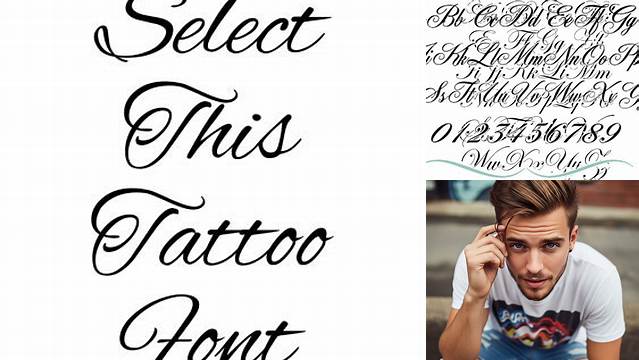
Cursive Fonts Tattoo Generator: Design Your Dream Ink
Hey guys! Are you thinking about getting a tattoo? That's awesome! If you're leaning towards a classic, elegant look, then you might be considering a cursive font for your tattoo. And that's where a cursive fonts tattoo generator comes in handy. This tool allows you to visualize what your chosen words or phrases will look like in various cursive styles before you commit to the permanent ink. Let's dive into the world of cursive tattoos and how a generator can help you achieve the perfect design.
1. What Makes Cursive Fonts Tattoo Designs So Popular?
Cursive fonts tattoos have a timeless appeal, and they're extremely popular for a number of reasons. First, the fluidity of cursive script lends itself beautifully to personalization. The flowing lines and interconnected letters evoke a sense of elegance and sophistication. It’s like a secret language inked onto your skin. The script itself is often associated with romance, and can carry a deeply personal meaning, such as a loved one's name, an inspirational quote, or a significant date. Unlike block letters or bold fonts, cursive can add a touch of artistry. Each letter becomes a work of art, woven together to create a harmonious whole. This sense of personalized artistry is a big draw for many people looking to express their individuality. The very nature of cursive fonts, with their loops and flourishes, allows for a wide range of customization. You can choose from delicate, feminine scripts or bold, more masculine styles. Cursive fonts have a historical charm. They evoke a sense of nostalgia, reminding us of handwritten letters. It’s like carrying a piece of history on your skin. The visual impact of cursive fonts tattoos is also a key factor in their popularity. The flowing lines draw the eye, creating a sense of movement and grace that other font styles might lack. The overall aesthetic is often considered more refined and visually appealing. It's a subtle way to make a statement. It can also be a symbol of continuity, representing a commitment to an idea, person, or value that will last a lifetime. It's like carrying a legacy on your skin. This makes them a fantastic choice for anyone wanting a tattoo that’s both aesthetically pleasing and deeply meaningful. The beauty of a cursive fonts tattoo design lies in its versatility. Whether you are looking for a simple name, a meaningful quote, or a complex phrase, a cursive tattoo can be tailored to suit your needs. The ability to customize the font, size, and placement of the tattoo is a major advantage. With a bit of planning, you can create a tattoo that is unique to you. The options are virtually limitless, and there are so many different styles to choose from. This adaptability means that you can create a truly bespoke piece of body art that reflects your unique personality and style.
2. How Does a Cursive Fonts Tattoo Generator Work?
So, how exactly does a cursive fonts tattoo generator work its magic? Well, these online tools are pretty straightforward and user-friendly. Basically, they're designed to simplify the tattoo design process, especially when you're using a cursive font. Here's the lowdown: First off, you'll typically input the text you want to see in cursive. This could be anything from a name, a date, a quote, or even just a single word. Then, you get to choose from a variety of pre-loaded cursive fonts. Some generators offer a wide array of styles, from delicate and feminine scripts to more bold and elaborate designs. You can play around with the different fonts to see which one best suits your desired aesthetic. Next, you can often customize the text. This might include adjusting the size of the text, its spacing, or even the angle at which it appears. Some generators might even allow you to preview your design on a virtual body part, giving you a better idea of how it will look when tattooed. Some of these tools even allow you to tweak the design. You might be able to adjust the thickness of the lines, the curves, or add flourishes and embellishments to the letters. The goal is to provide you with a realistic preview before you go to the tattoo artist. You can experiment with different options, getting a feel for what you like best. It's all about finding the perfect style for your design. Once you're happy with your design, you can usually save it or download it. Then, you can take your design to your tattoo artist for them to bring it to life. The entire process is meant to be simple and intuitive, allowing you to explore your ideas with ease. You'll be able to experiment with various fonts, styles, and layouts. This helps you to make informed choices about your tattoo design. With a cursive fonts tattoo generator, you are in control of the design process from start to finish. You can be sure that the end result matches your vision. It's like having a virtual tattoo artist at your fingertips, ready to help you create something special.
3. Choosing the Right Cursive Font Style for Your Tattoo
Choosing the right cursive font style is a crucial step in the design process. The style you select will significantly impact the overall look and feel of your tattoo. There are countless options out there, from elegant and classic scripts to modern and edgy designs. Each style conveys a different mood or message, so it's important to choose one that aligns with your personal style and the meaning you want to convey. Classic cursive fonts often feature flowing lines, elegant curves, and a timeless appeal. They’re a fantastic choice if you want a tattoo that is both stylish and sophisticated. They evoke a sense of nostalgia and romance. They are the perfect option for names, dates, or short, meaningful phrases. In contrast, modern cursive fonts often have bolder lines, sharper angles, and a more contemporary aesthetic. These fonts can make a striking statement. They are a good choice if you want a tattoo that feels fresh and current. Some cursive fonts incorporate decorative elements like flourishes, swirls, or calligraphic details. These add a touch of artistry and personality to your tattoo. These elements can make your tattoo design truly unique. It's about finding a style that complements your message and style. The selection of a font will depend on the design you have in mind. You should think about what message you want your tattoo to convey. Consider the size and placement of your tattoo. Larger tattoos might suit more elaborate fonts. The design should flow nicely with the area of the body where it will be placed. Also, think about the overall style of your existing tattoos. You want your new tattoo to complement your existing body art. Ultimately, the best cursive font is the one that resonates with you. Try out a variety of fonts. Use a cursive fonts tattoo generator to experiment with different styles. This will help you visualize what your design will look like on your skin. You're sure to find the perfect font that reflects your individuality. You should consider the meaning of your tattoo, as well. The font can enhance the message you're trying to convey. Take your time and enjoy the process. The right font will help you express yourself and will result in a tattoo you will love for a lifetime.
4. Tips for Using a Cursive Fonts Tattoo Generator Effectively
To make the most of your cursive fonts tattoo generator experience, here are some handy tips: First off, start by gathering inspiration. Look at different cursive font styles online. Check out tattoo designs and find what you like. You may even find some inspiration on social media. This will give you a sense of what you like and dislike. Then, when you start using the generator, type in the text you want to use. Be careful about the words you choose. Make sure that the text is easy to read and that it has a deep personal meaning. After that, experiment with different fonts and sizes. Do not be afraid to try a range of styles and options. You can change the size of the text and even the spacing between the letters. You can see how the different fonts will appear on your skin. Don't rush the process. Take your time and explore your options. You can save and revisit your designs as you wish. You may even want to save a couple of different designs that you can then discuss with your tattoo artist. After that, consider the placement of your tattoo. The size of the tattoo will depend on the placement. Larger tattoos are best for larger body parts. The chosen text will also affect the final result. Shorter words or phrases are best for smaller areas. If you're still unsure, ask your tattoo artist for their input. They may even be able to offer advice. Also, when you have a design you like, show it to your tattoo artist. They can help you with final adjustments and make sure that the design will look great on your skin. Ask them for their input and advice. Finally, remember that the cursive fonts tattoo generator is a tool to help you visualize your tattoo design. It is not a substitute for professional advice. Your tattoo artist will ensure that the final design is safe, beautiful, and matches your vision. The goal is to create a unique tattoo that will make you happy.
5. Common Mistakes to Avoid When Designing a Cursive Tattoo
When designing a cursive tattoo, there are some common mistakes that you should avoid. This will help you get a tattoo you’ll love. One common mistake is choosing a font that is too intricate or delicate. While a highly detailed font might look great on paper, it may not translate well to skin. Over time, the fine lines can blur and fade. This is especially true for areas of the body that experience a lot of movement. Choose a font that is legible and that will look good even as it ages. Another mistake is selecting a font that is difficult to read. Your tattoo should be easily understandable. You should be able to read it without any struggle. If the font is too stylized or ornate, it may be hard for others to understand what it says. Consider the overall message you want to convey with your tattoo. The message should be clear and easily understood. Also, avoid picking a font that is too small. Tiny tattoos may look cute, but they can be hard to see. They may also lose their detail over time. Think about the size and placement of your tattoo. Consider how it will look as your skin ages. The font should be big enough to be read. Also, avoid rushing the design process. Take your time to experiment with different fonts, sizes, and styles. Make sure you love the design before you commit to it. After all, you'll be living with this tattoo for a long time. Research the tattoo artist thoroughly. They should be skilled in creating cursive tattoos. Look at their previous work and read reviews. Ask the artist about their experience with cursive fonts. A skilled artist can help you avoid common mistakes. By avoiding these common mistakes, you can increase your chances of getting a cursive tattoo that you'll be proud to wear for years to come. A tattoo is permanent, so it is worth the time and effort to get it right.
7. Aftercare for Your Cursive Fonts Tattoo: Keeping Your Ink Looking Fresh
Aftercare is a crucial aspect of getting a tattoo, including a cursive fonts tattoo. Proper care during the healing process ensures that your tattoo heals properly and looks its best. Here's a guide to keeping your ink looking fresh: First, keep the bandage on for the amount of time that your artist recommends. This usually ranges from a few hours to a full day. The bandage protects the tattoo from bacteria and dirt. After removing the bandage, gently wash the area with mild soap and lukewarm water. Avoid harsh soaps, and pat the area dry with a clean towel. Do this a couple of times a day, especially during the first few days. Next, apply a thin layer of unscented lotion to the tattoo. This helps keep the skin moisturized and prevents it from drying out. You should apply lotion a few times a day. Avoid scratching or picking at the tattoo. This can damage the ink and cause infection. Allow the tattoo to breathe. Wear loose-fitting clothing over the tattoo to prevent rubbing or irritation. Avoid direct sunlight. UV rays can fade your tattoo. If you're going to be exposed to the sun, apply sunscreen with a high SPF. Stay out of pools, hot tubs, and bodies of water. These environments can harbor bacteria that can infect your tattoo. Follow the artist's instructions on aftercare. If you have any concerns, contact your tattoo artist. Be patient. The healing process can take several weeks. Once your tattoo is fully healed, continue to take care of it by moisturizing it and protecting it from the sun. By following these simple tips, you can ensure that your cursive fonts tattoo looks fresh and vibrant for years to come. The care you take will determine how your tattoo will look in the long run. It's essential to follow these tips to help your tattoo heal and maintain its vibrancy and clarity.
8. Popular Placement Ideas for Cursive Fonts Tattoos
Thinking about the perfect spot for your cursive fonts tattoo? The placement of your tattoo can dramatically impact its overall look and feel. Here are some popular placement ideas to consider: Wrist tattoos are a classic choice. The wrist is a visible spot, making it easy to display your tattoo. The design should be small. It can add a touch of elegance to your style. Ankle tattoos are another popular option. They can be easily concealed. They can also be a sweet, subtle, and feminine design. They offer a discreet way to showcase your tattoo. Collarbone tattoos are a popular choice for displaying names or quotes. They can create a delicate, elegant look. They're often placed along the collarbone. Rib cage tattoos can be a great option for longer quotes or more complex designs. It is also a more private location. It offers a versatile canvas for expressing yourself. Forearm tattoos are another option. Forearm tattoos are often visible. They can be used to make a bold statement. They are visible. They provide a great spot to show off your ink. Back of the neck tattoos can create a sophisticated look. They are a good choice for small, elegant designs. They're discreet. Shoulder blade tattoos provide a great canvas for a more extensive design. These are great if you want to show off a quote. Each placement offers a unique aesthetic. It's about what you'd like to portray. Consider your personal style and lifestyle when making your decision. The goal is to find a spot where your tattoo will be both visible and comfortable. It will suit your overall aesthetic. These are just some ideas. The best spot depends on the tattoo's meaning. You should think about how the tattoo will look in different locations. Consider your personal preferences. You can also discuss options with your tattoo artist. They may offer some valuable insights. The right placement can make your cursive fonts tattoo a beautiful piece of body art.
12. Famous Cursive Font Tattoos and Their Meaning
Looking at the cursive font tattoos of famous people can provide inspiration. Also, these tattoos often have deeply personal meanings. Many celebrities choose cursive for their tattoos because of its elegance. They also use it to express their personal stories. One popular example is the tattoo of Angelina Jolie. Angelina has several tattoos, but one is the phrase,